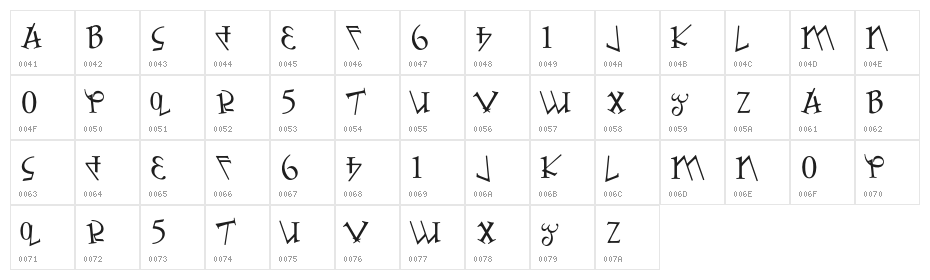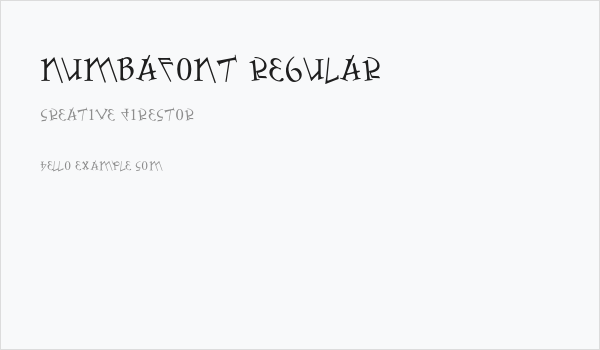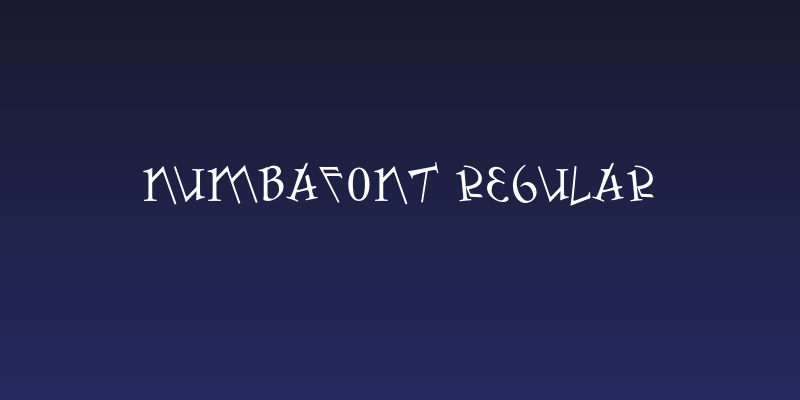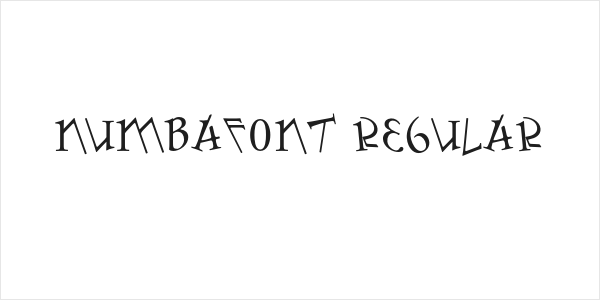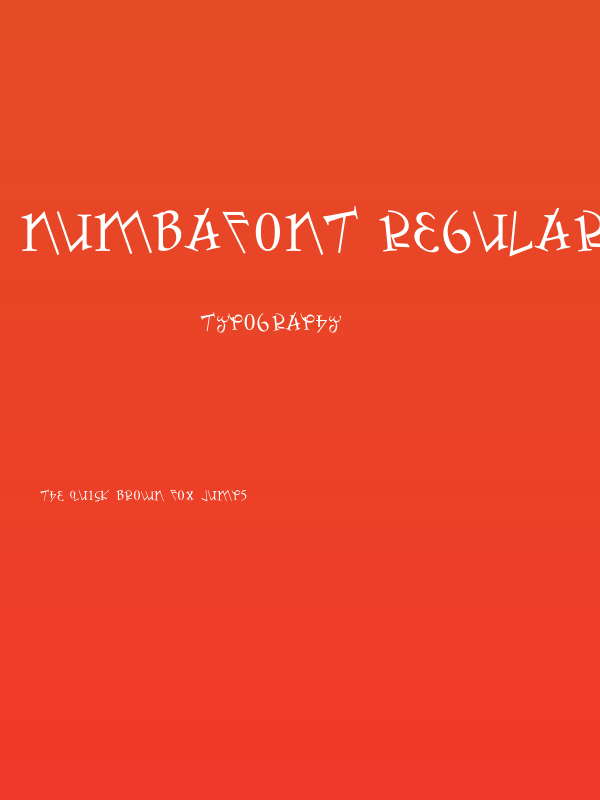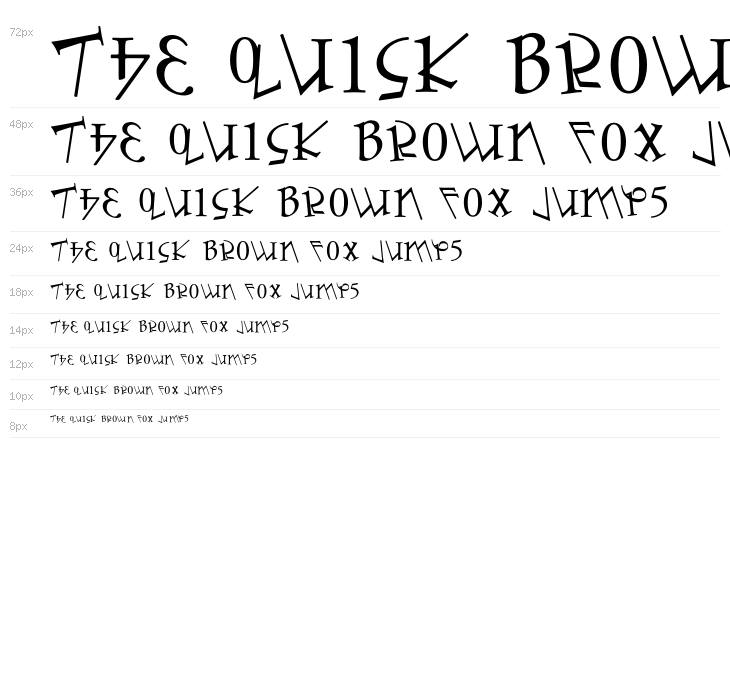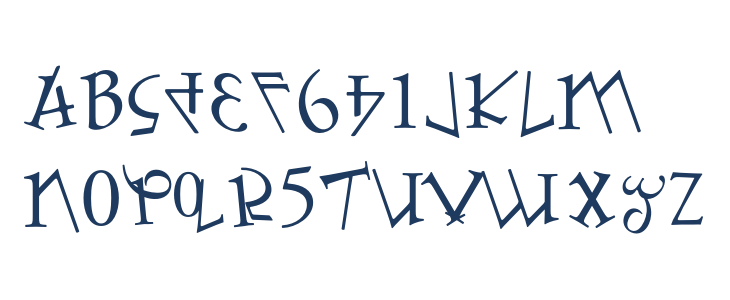
Numbafont-Regular Font
Numbafont-Regular Description
This font features a highly stylized and decorative design, characterized by sharp angles and unique geometric shapes. The letters exhibit a playful yet edgy appearance, with some characters incorporating unexpected curves and lines that add to its distinctiveness. The overall look is reminiscent of ancient or mystical scripts, making it ideal for projects that require a touch of fantasy or intrigue. The font maintains consistency in its angular theme across both uppercase and lowercase letters, as well as numbers and special characters, ensuring a cohesive visual experience.
| Proposed Projects | Perfect for fantasy book covers, game titles, movie posters, or any project needing a mystical or ancient feel. |